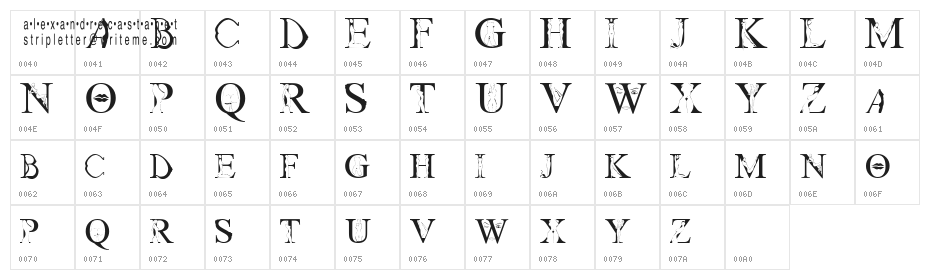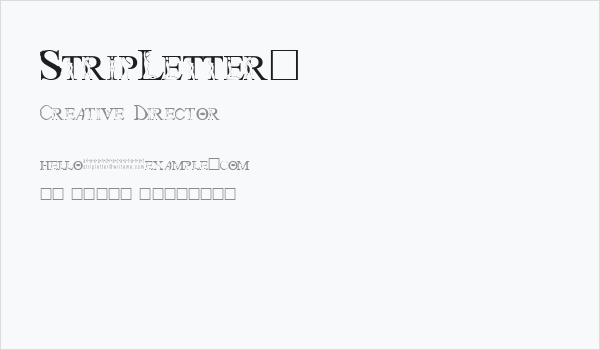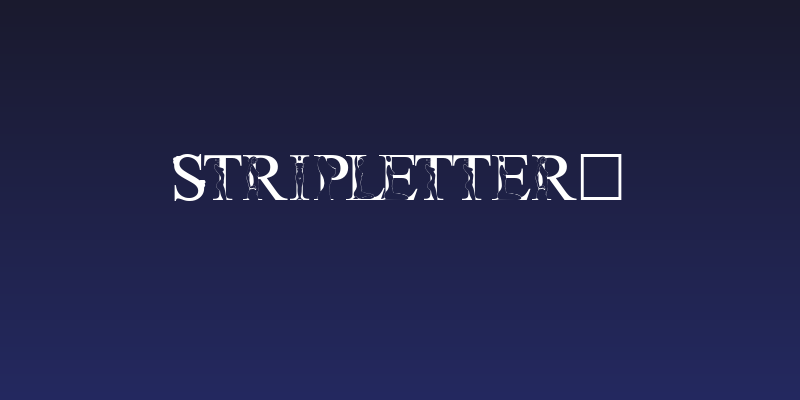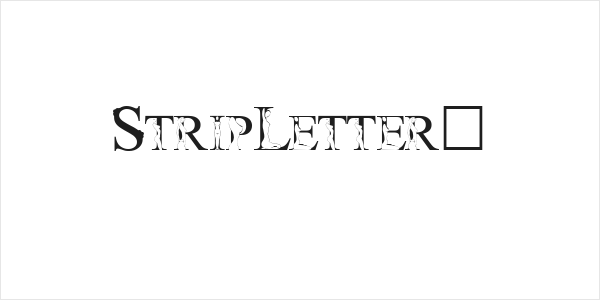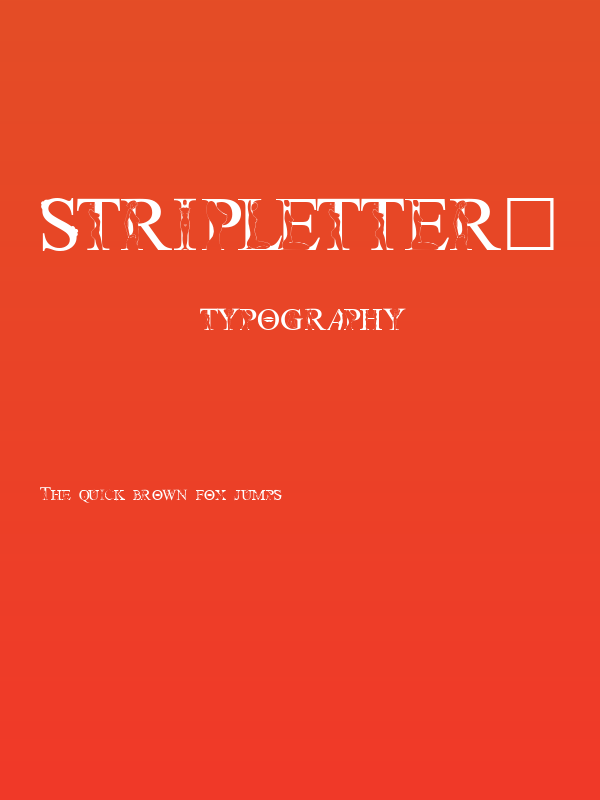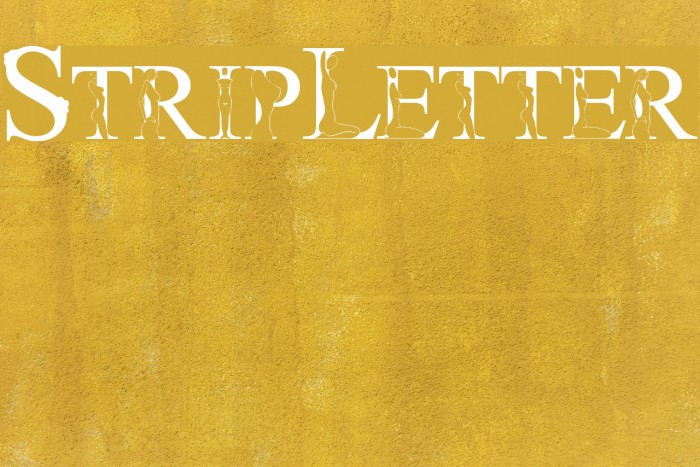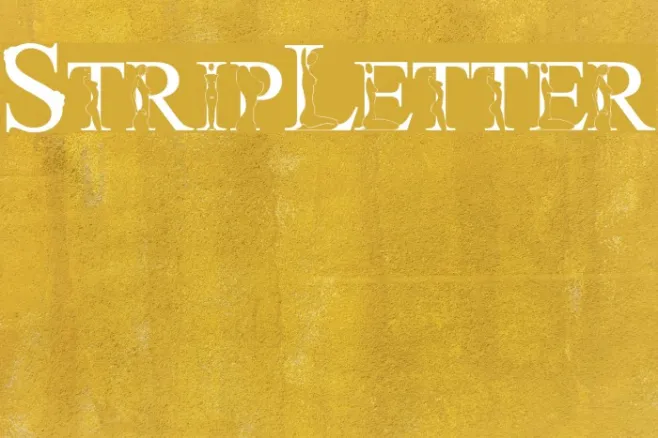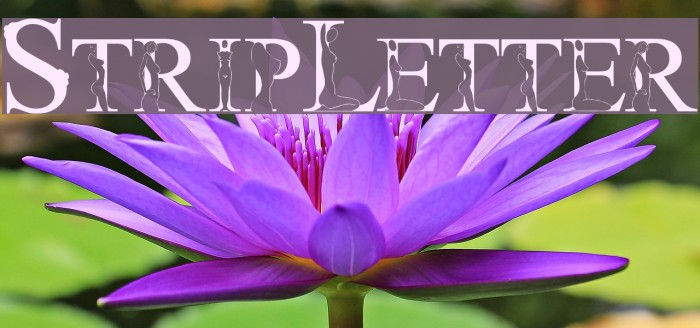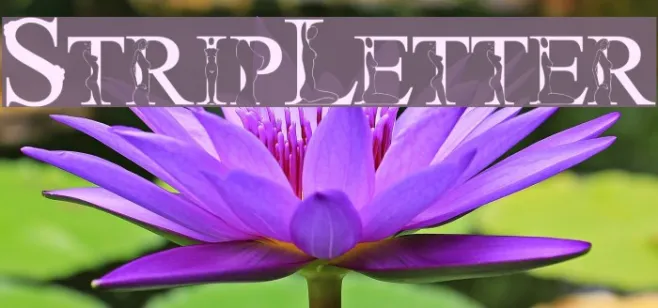
StripLetter1 Font
StripLetter1 Description
This decorative font features a unique design where each letter is intertwined with artistic illustrations of human figures. The uppercase letters are bold and striking, with intricate details that create a visually engaging effect. The font has a classic serif style, but the addition of the figures gives it a modern twist. The characters are well-defined, with a medium contrast between thick and thin strokes. This font is particularly suited for creative projects that require a bold statement, such as posters, album covers, or artistic branding. The spacing between characters is normal, allowing for readability while maintaining its decorative appeal.